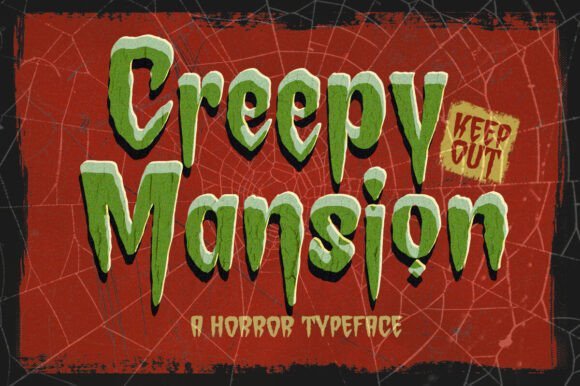
Unveiling the Shadows: Introducing Creepy Mansion Font
Have you ever been stuck in the middle of a design project, struggling to find the perfect font to capture the essence of your dark and eerie concept? I know I have. It’s like staring into the void, searching for that one spark that ignites the atmosphere you’re trying to create. For designers who crave the macabre and the mysterious, our latest creation is here to set your imagination ablaze.
Meet Creepy Mansion Font – a hauntingly mesmerizing horror display font that beckons to the shadows. This font is not just a tool for designers, but a key to unlocking the darkest corners of your creativity. With its unique blend of elegance and terror, Creepy Mansion Font is the perfect addition to any horror-themed project, from movie posters to haunted house invitations.
Whether you’re a seasoned designer or a beginner looking to add some edge to your portfolio, Creepy Mansion Font is a valuable asset that will take your designs to the next level. So, are you ready to step into the creepy mansion and unleash your inner horror designer?
Creepy Mansion Font Key Features
- Font Family: A unique, eerie font designed to evoke a sense of mystery and foreboding, perfect for horror-themed projects or titles.
- Unique Characteristics: Features intricate, hand-drawn details and a distressed texture, giving it a vintage, macabre feel.
Creepy Mansion Font Review
Overall, I think the Creepy Mansion Font is a great addition to any designer’s toolkit. It’s perfect for adding a touch of eeriness to your next Halloween project or creating a spooky atmosphere in your next horror-themed game. ✨
- Unique and eerie design – The font’s distressed, old-fashioned look really captures the feeling of a creepy mansion.
- Great for Halloween and horror-themed projects – The font is perfect for adding a touch of eeriness to your next project.
- Limited versatility – The font’s unique design might make it less suitable for projects that require a more modern or sleek look. ⚠️
- No extended character set – The font only includes the standard character set, which might limit its use in certain languages or projects.
In conclusion, I think the Creepy Mansion Font is a great choice for designers who want to add a touch of eeriness to their projects. While it may have some limitations, the font’s unique design and high-quality font files make it a valuable addition to any designer’s toolkit.
Use the Creepy Mansion Font to create a spooky atmosphere in your designs.
Pair it with dark colors and eerie backgrounds to create a creepy ambiance.
Use it to create titles, headings, and body text for your designs.
Use the Creepy Mansion Font for:
Spooky-themed designs, such as Halloween invitations and decorations.
Horror movie posters and trailers.
Creepy atmosphere-driven designs, such as haunted house invitations and dark fantasy art.